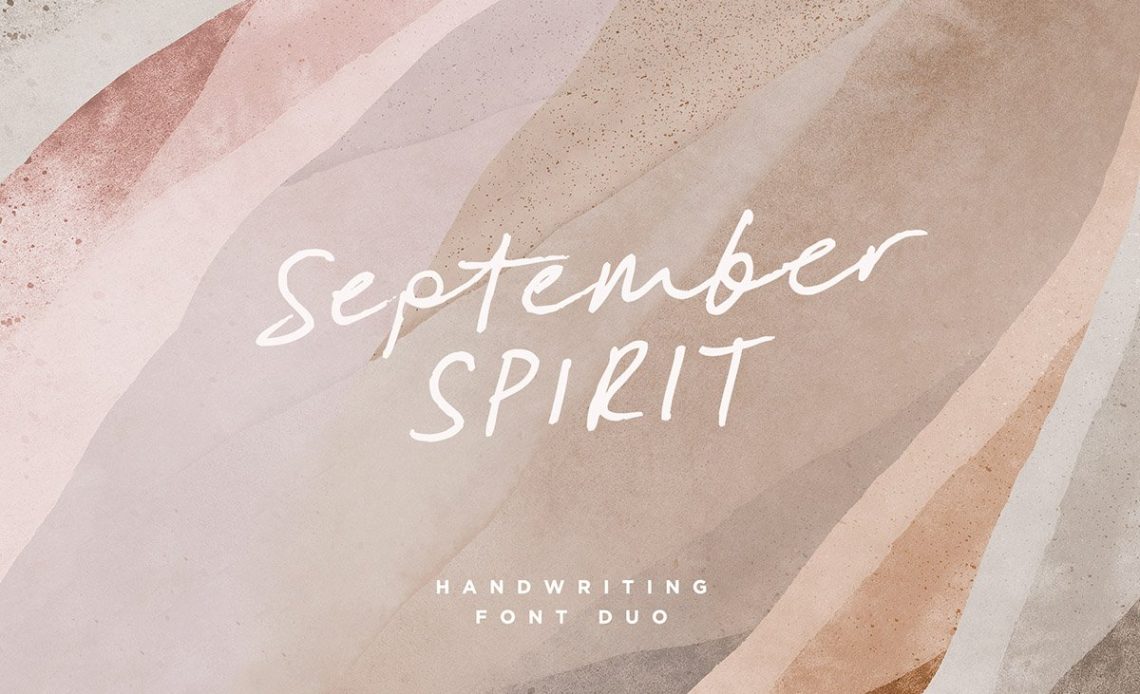
Welcome to the world of September Spirit Font Duo, a hyper-realistic handwritten font duo created by Sam Parrett that will captivate your heart and inspire your creativity. This font family includes a fast-flowing handwriting font, an all-caps version, and a bonus font of extra circles, underlines, and arrows that will give your designs an additional hand-crafted aesthetic.
The September Spirit Font Duo utilises a large range of ligatures and alternate characters, all taken from real handwritten words, to achieve an incredibly natural handwritten style. You'll love the unique letter combinations that give your text a personal touch and help your message stand out.
If you want to create a custom-made style or try a different word shape, the September Spirit Alt font is the perfect option. With a completely new set of upper and lowercase characters, this font allows you to avoid letters looking the same each time and get creative with your designs.
The September Spirit All Caps font is an uppercase-only font that pairs perfectly with the regular September Spirit fonts to add emphasis to words or phrases. Use it to make a statement and grab your audience's attention.
In addition, the September Spirit Extras font containing 19 hand-drawn arrows, circles, and underlines is ideal for adding extra emphasis to your September Spirit text.